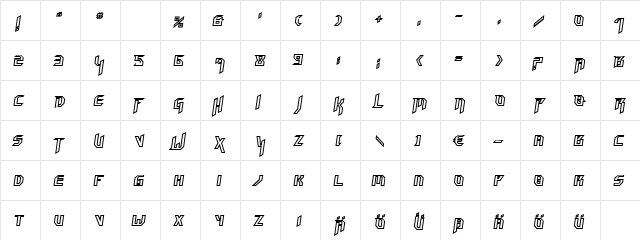
HammerheadOutline Italic
HammerheadOutline is built around its visual character rather than neutral utility — its distinctive forms are designed to make an impression at display sizes. The dynamic lean of this cut emphasises speed and emphasis in any layout.
Font Pairing: Pair with a clean neutral sans-serif for body copy to let HammerheadOutline's character lead without overwhelming the composition.
Pro Tip: Treat HammerheadOutline as the centrepiece of your typographic hierarchy. One strong heading set in a decorative face can carry an entire layout.